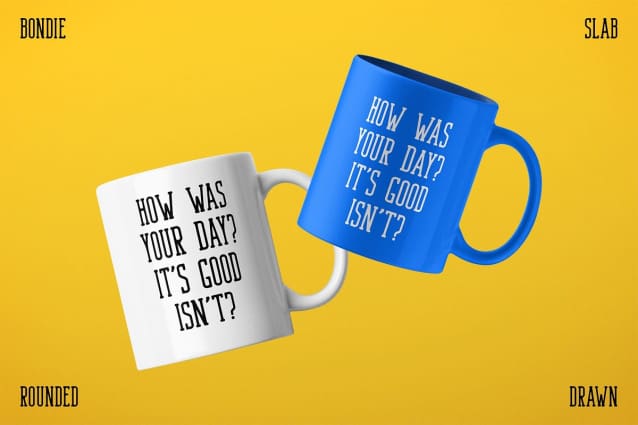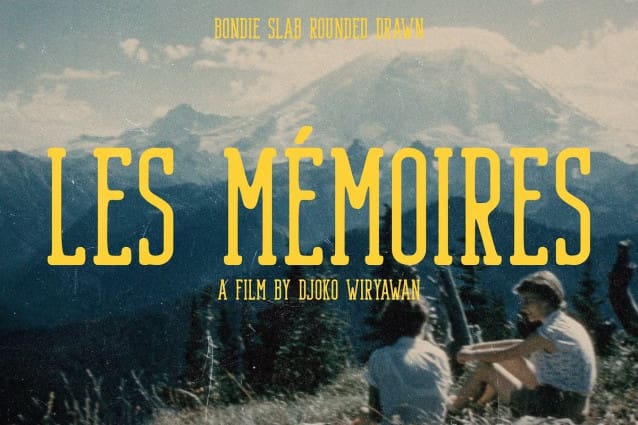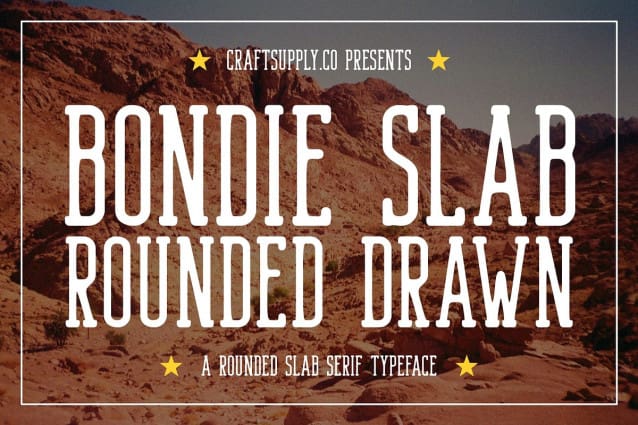
Bondie Slab Rounded Drawn Font
Bondie Slab Rounded Drawn Font, a condensed serif font that seamlessly blends rounded and drawn shapes. This distinctive fusion strikes a harmonious balance between traditional sophistication and contemporary allure, rendering it an exemplary choice for an array of imaginative design endeavors.
Embodying adaptability in its design, this font transcends boundaries, catering to a diverse spectrum of applications. Whether you’re crafting a logo, conceptualizing packaging, or orchestrating editorial layouts, the font lends an unmistakable and sophisticated aura to your creations.
This rounded drawn font is the ideal choice for designs that require a blend of classic and modern elements. Whether you’re creating a logo, designing a poster, or crafting an invitation, this font adds a unique, stylish touch and a contemporary nature that can exude freshness and innovation to your work.
This font prioritizes visual appeal, ensuring that your designs are both engaging and refined. Whether you’re creating a poster, designing a website, or developing branding materials, this rounded drawn font offers a versatile and stylish solution. Its combination of classic elegance and modern flair ensures that your designs will always look fresh and innovative.